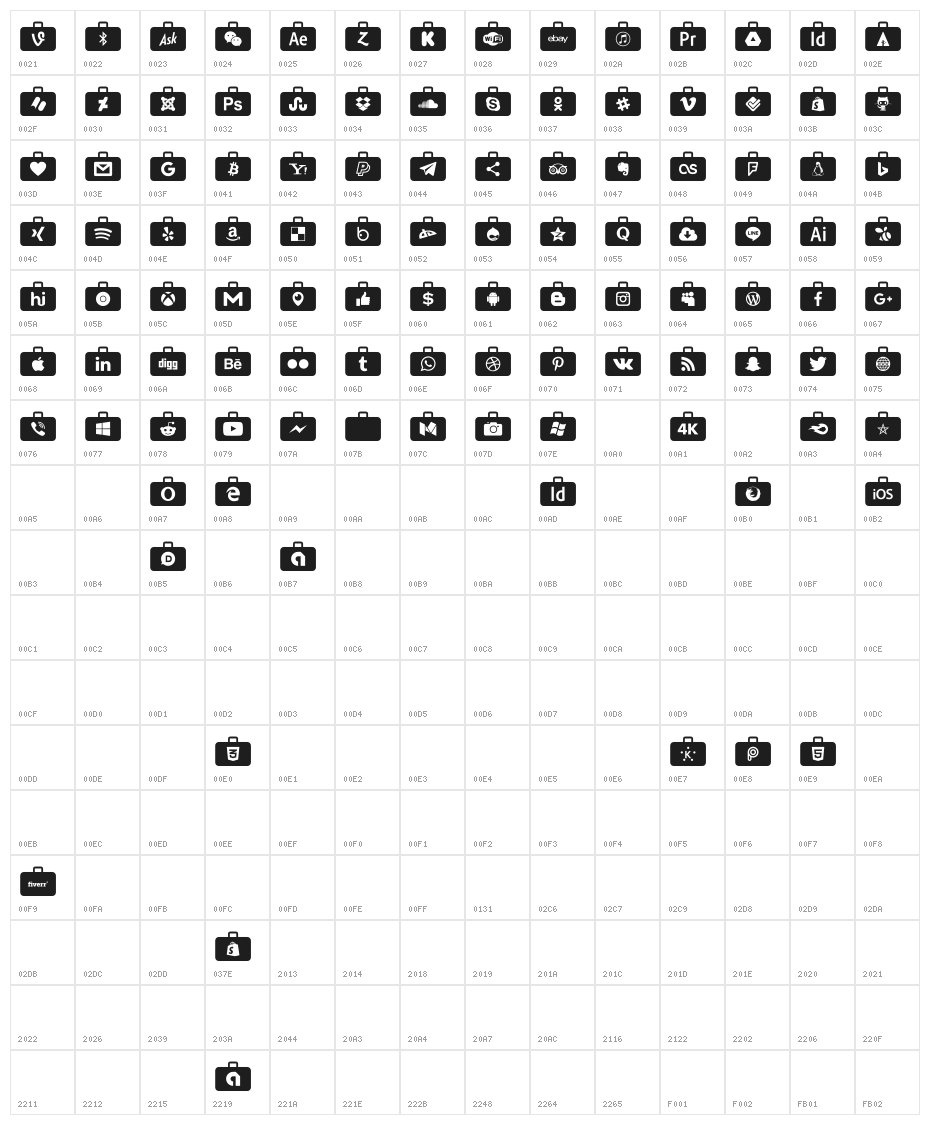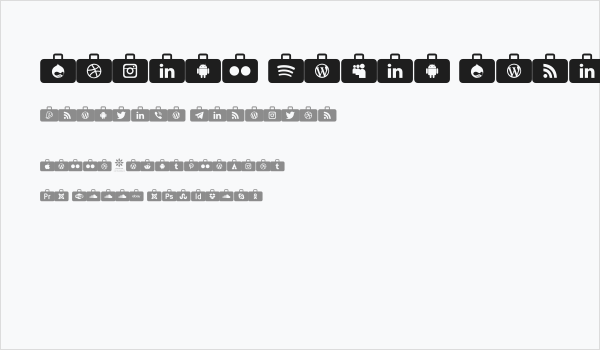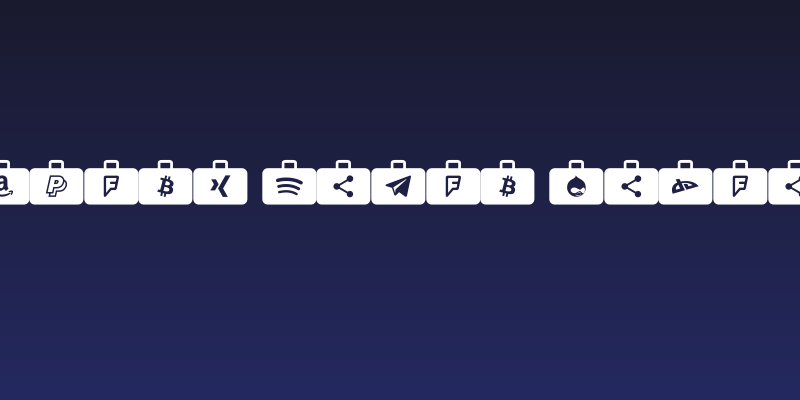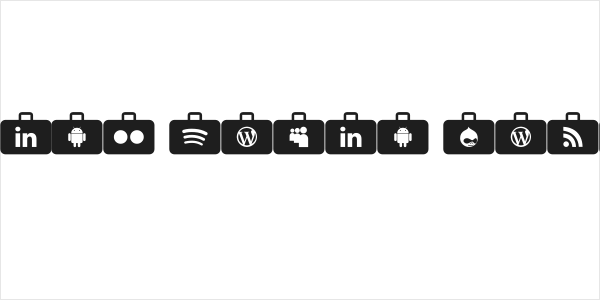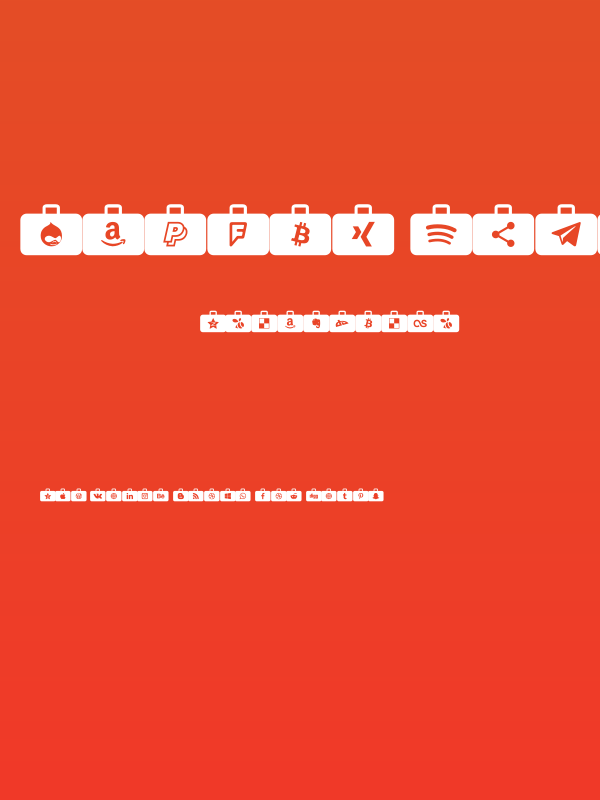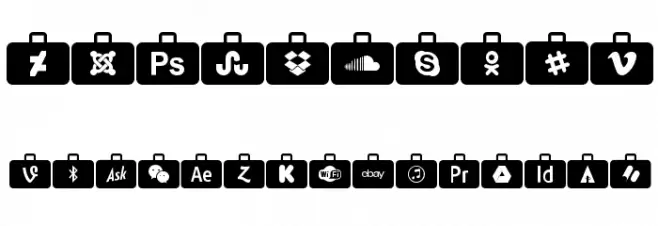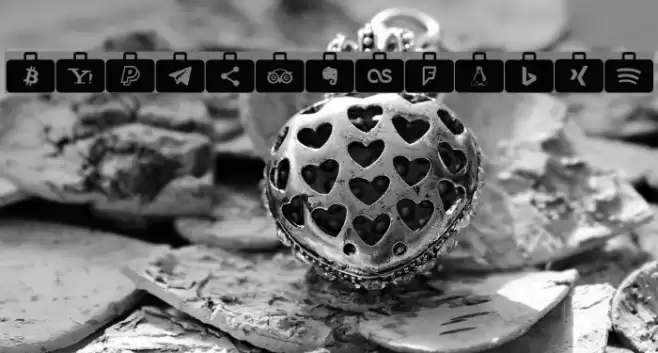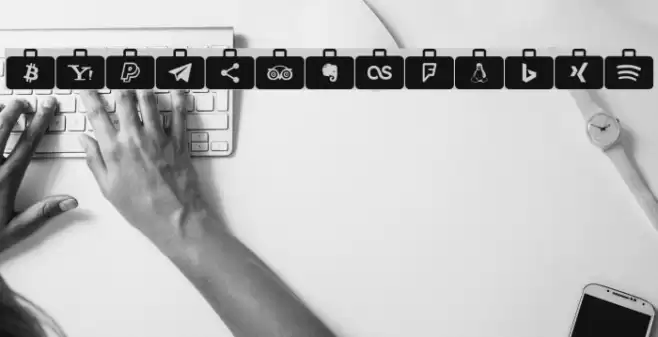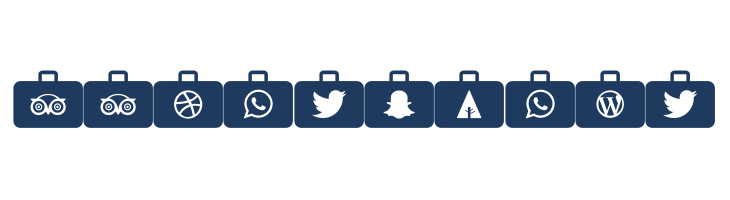
Social Media Series Font
A collection of social media and tech-related glyph icons, each enclosed in a rounded rectangle with a small tab at the top, rendered in a bold, high-contrast, monochrome style. The icons are simple, geometric, and easily recognizable, designed for clarity and quick identification.
| Overall Style | Modern, Minimalist, Decorative |
| Use Case | Icons, UI elements, Social media links, Branding |
| Proposed Projects | Websites, app interfaces, presentations, infographics, social media graphics, branding kits. |